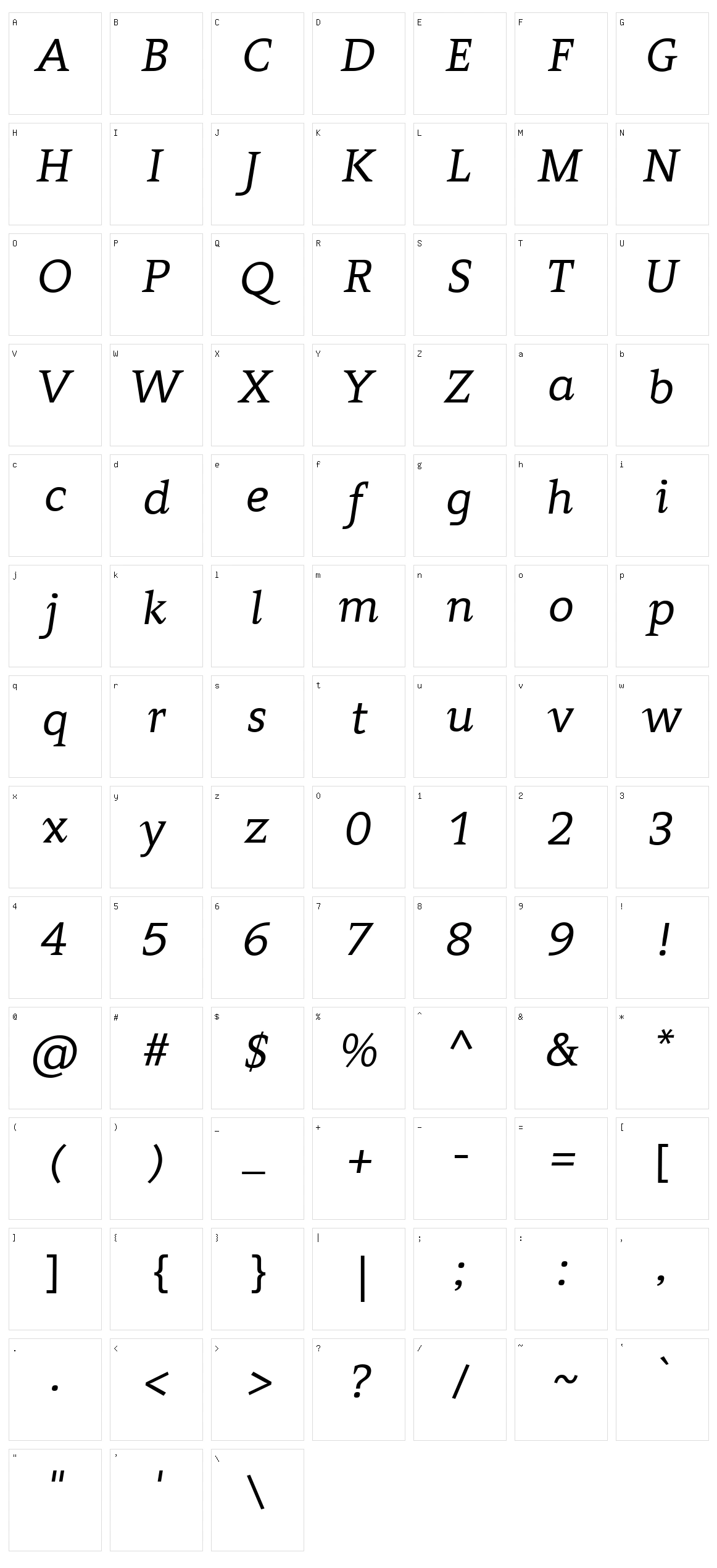
These are very great fonts by an international genius.
I have worked so hard on these masterpieces for the past thirty years. I have moaned and groaned and banged my head against walls. I have paced back and forth through every hotel lobby in Rio, Havana, New York City, Berlin, Paris, Athens and Muskoka, thinking about these fonts and crying, flipping the bird to Father Time and Mother Gravity, and kicking every bucket I saw. I have thought about these letters through many wars, traffic jams, drinking bouts, cigarettes, weddings, funerals, acid trips, museum visits, parties, intercourse, television shows, radio broadcasts, magazines, children, prison terms, insurance claims, sports, and anything that can be construed as an escape from time.
These fonts combine the tidal power of Garamond with the blood-chilling immediacy of Impact, which is all old stuff now, I know. But I have also intertwined the spotlit insistence of Futura, the strong determination of Stencil, the nonchalent love of DIN, the entirety of German fraktur, and the proportional oddities of all pre-Koch experiments. They are a marvelous new kind of letters.
These fonts are so wide and deep that they remind me of the biggest screen kiss I have ever seen. That kiss was so big I don't even remember who the actors were. The lips are what remain in my head now. Four lips trying to close the gap and keep the heat inside. We spent the rest of the night trying to match the power of that kiss, but we only managed to get our lips achy and our minds tired.
These fonts certainly carry that sort of power. A new genre should be named in honour of such beautiful alphabets. Right brain, left brain, no matter. These fonts are an all-brain, all-eyes, all-senses miracle.
As for type contests: these fonts should score an all-around grand-slam in every category there ever was. Text, display, everything!